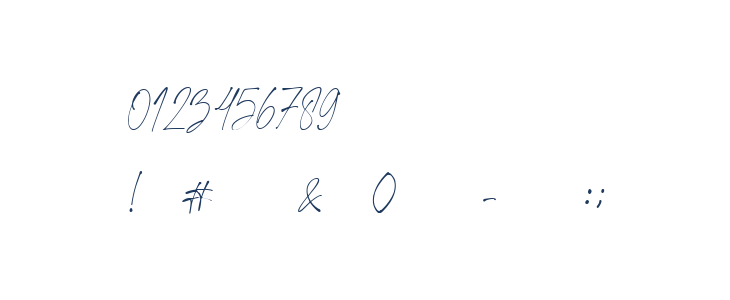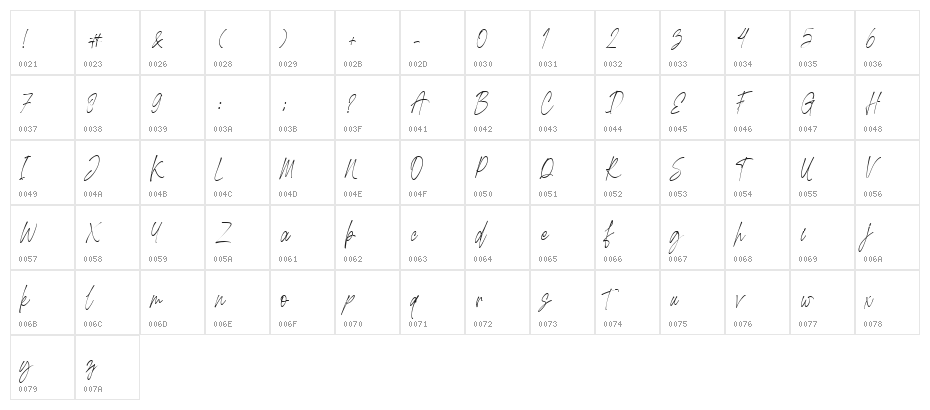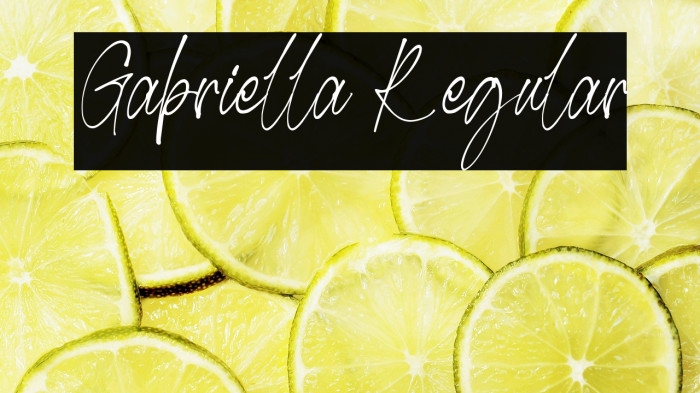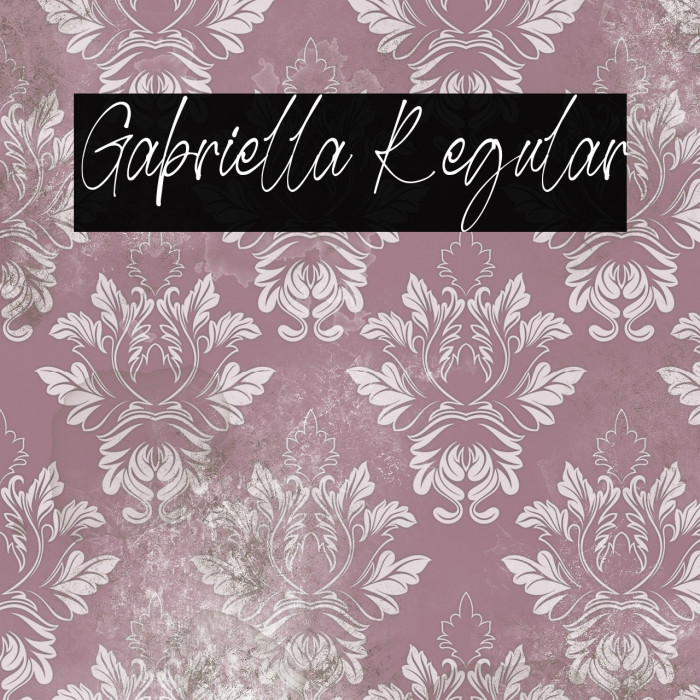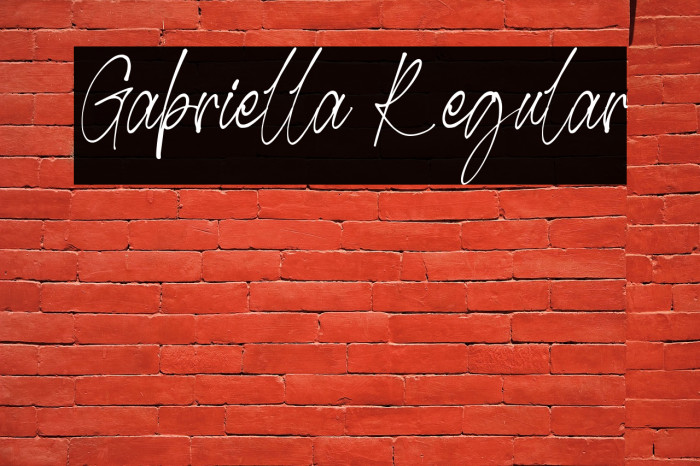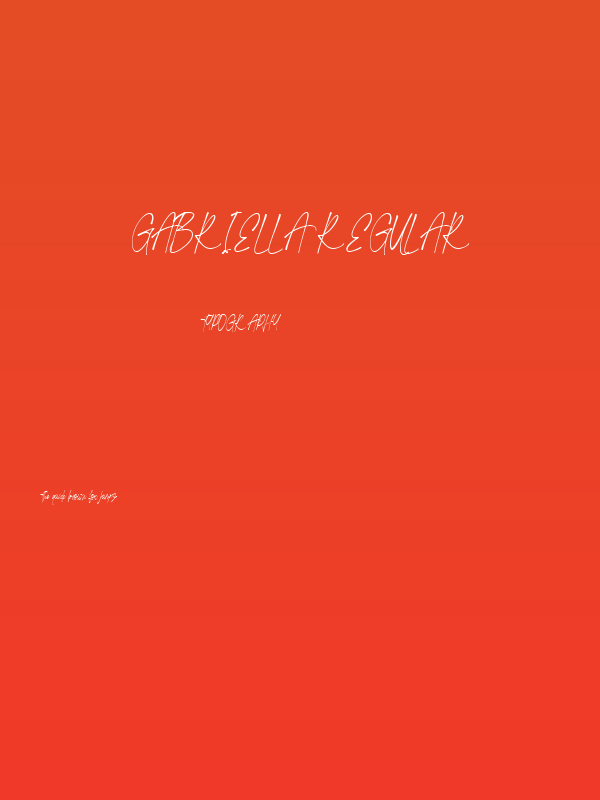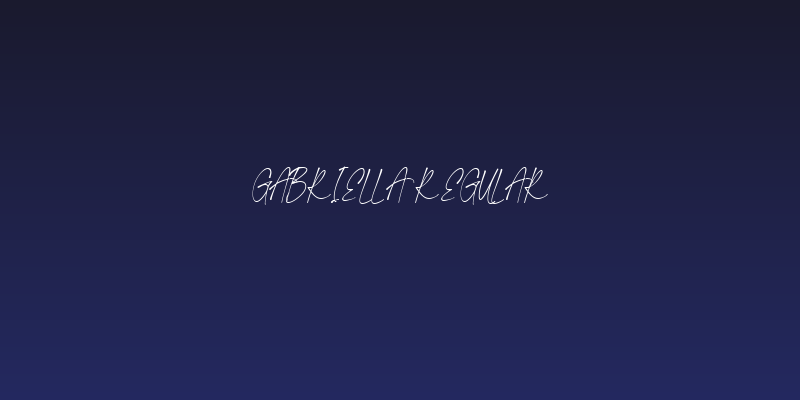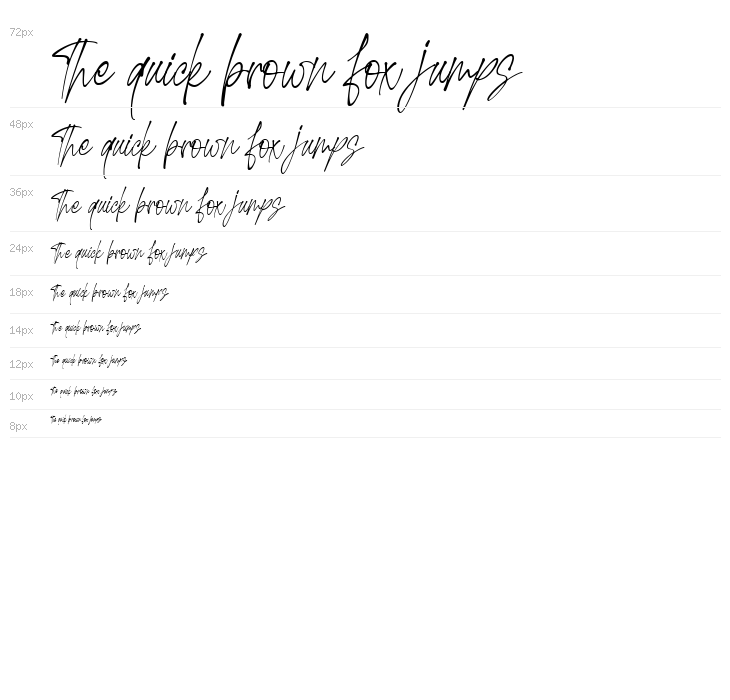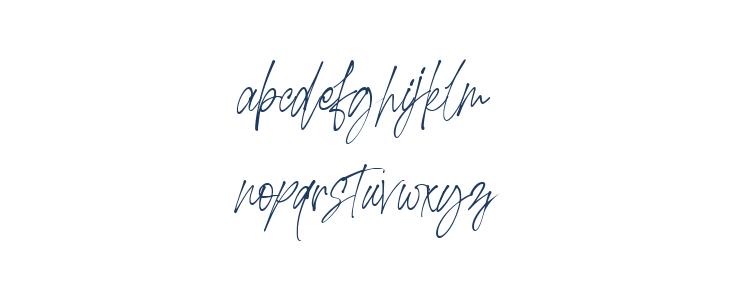
Gabriella Regular Font
Gabriella Regular Description
This font exudes a sophisticated and elegant handwritten style, characterized by its fluid and graceful strokes. The letters are connected in a cursive manner, giving it a personal and artistic touch. The uppercase letters are tall and slightly slanted, while the lowercase letters maintain a consistent flow, enhancing readability. The numerals and special characters are designed with the same fluidity, ensuring a cohesive look across all characters. This font is perfect for projects that require a touch of elegance and personalization.